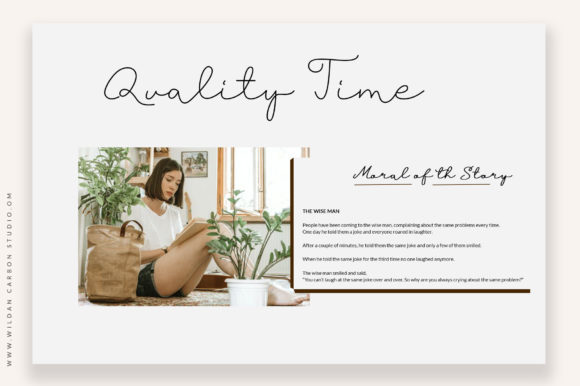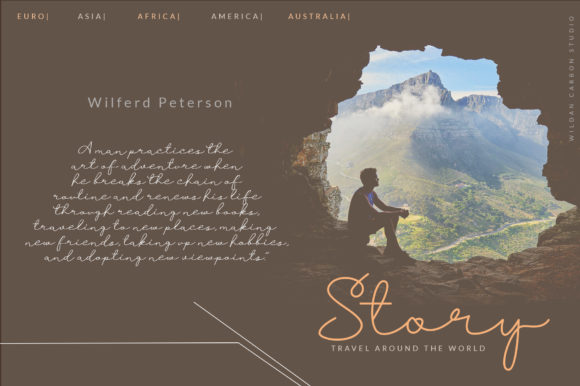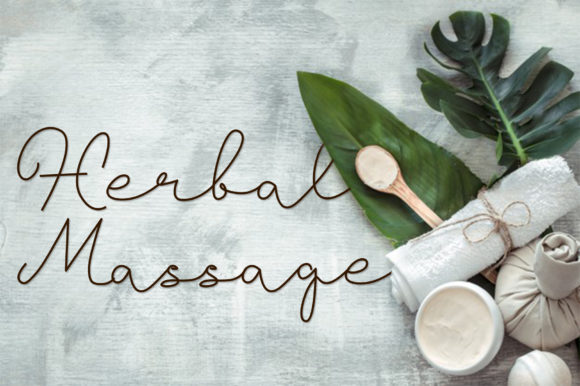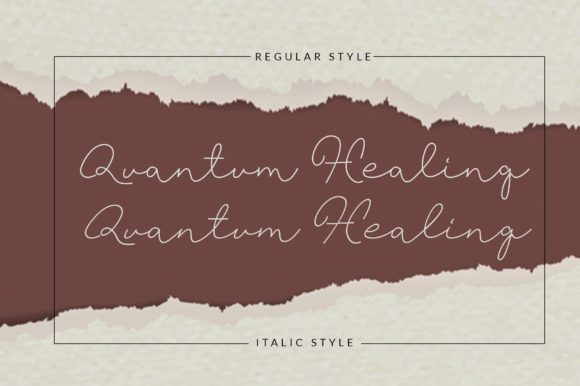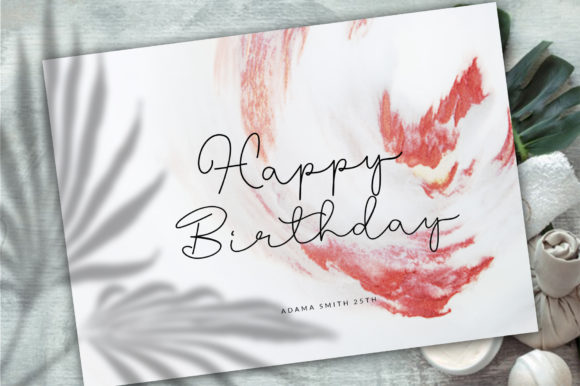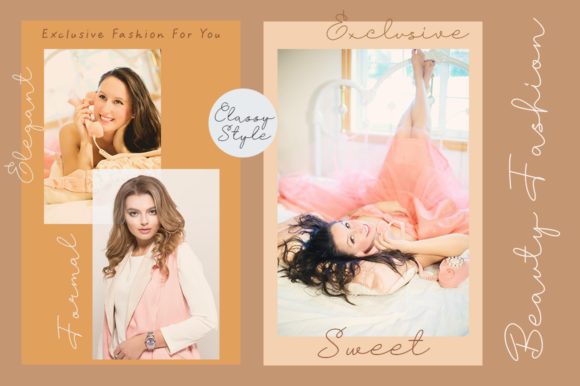
Dubrovnik Hill Font: Elevate Your Designs with Elegance
In the realm of typography, fonts play a pivotal role in conveying messages, evoking emotions, and enhancing the aesthetic appeal of designs. Among the plethora of fonts available, Dubrovnik Hill stands out as a beacon of elegance and sophistication. This article delves into the characteristics, applications, and benefits of using Dubrovnik Hill, a thin lettered and delicate handwritten font that is poised to revolutionize your design endeavors.
The Essence of Dubrovnik Hill
Dubrovnik Hill is a thin lettered and delicate handwritten font, crafted to infuse designs with a clean and smooth vibe. Its elegance lies in its simplicity, making it an ideal choice for designers and crafters aiming to add a touch of sophistication to their creations. Whether you’re working on branding, product packaging, invitations, quotes, t-shirts, labels, posters, or logos, Dubrovnik Hill promises to be a hit.
Key Features of Dubrovnik Hill
- Thin Lettered and Delicate: The font’s thin letters and delicate strokes lend an air of elegance and refinement to any design.
- Clean and Smooth Vibe: The clean lines and smooth curves of Dubrovnik Hill ensure that your designs exude a sense of professionalism and sophistication.
- Versatility: From branding and product packaging to invitations and t-shirts, Dubrovnik Hill’s versatility knows no bounds.
- Easy to Read: Despite its delicate nature, Dubrovnik Hill remains easy to read, making it perfect for both digital and print designs.
Applications of Dubrovnik Hill
The applications of Dubrovnik Hill are vast and varied. Here are some of the most notable uses:
- Branding: Establish your brand’s identity with a font that speaks elegance and sophistication.
- Product Packaging: Elevate your product’s presentation with packaging that boasts a clean, smooth, and refined look.
- Invitations: Create stunning invitations for weddings, parties, and corporate events that leave a lasting impression.
- Quotes and Posters: Make your quotes and posters stand out with a font that adds a touch of class and sophistication.
- T-Shirts and Merchandise: Design captivating t-shirts and merchandise that appeal to those with a penchant for elegance.
Benefits of Using Dubrovnik Hill
Incorporating Dubrovnik Hill into your designs comes with a multitude of benefits:
- Unique Aesthetic: Dubrovnik Hill offers a unique aesthetic that sets your designs apart from the crowd.
- Emotional Connection: The font’s elegance and sophistication can evoke positive emotions, creating a deeper connection with your audience.
- Professionalism: Dubrovnik Hill lends a professional touch to your designs, making them suitable for a wide range of applications.
- Timeless Appeal: The font’s classic appeal ensures that your designs remain relevant and stylish for years to come.
Tips for Maximizing Dubrovnik Hill’s Potential
To get the most out of Dubrovnik Hill, consider the following tips:
- Pair with Complementary Fonts: Combine Dubrovnik Hill with complementary fonts to create visual interest and hierarchy.
- Choose Appropriate Colors: Select colors that enhance the font’s elegance and sophistication.
- Experiment with Sizes: Play with different sizes to emphasize certain elements and create a balanced design.
- Consider Line Spacing: Ensure adequate line spacing to maintain readability and flow.
| Font Name | Dubrovnik Hill Font |
| Author | Wildan Type |
Dubrovnik Hill is more than just a font; it’s a design element that can elevate your creations to new heights of elegance and sophistication. Its versatility, readability, and timeless appeal make it an invaluable asset for designers and crafters. Whether you’re looking to make a statement with your branding, create captivating product packaging, or design stunning invitations, Dubrovnik Hill is the perfect choice. Embrace the elegance of Dubrovnik Hill and watch your designs transform into masterpieces of style and sophistication.